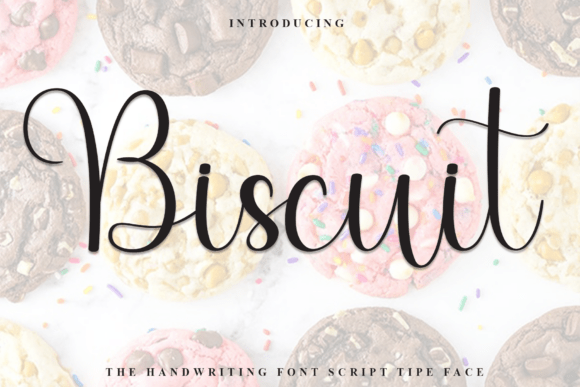
Biscuit Font: The Perfect Addition to Your Design Toolbox
Are you tired of using the same old fonts in your designs? Look no further than the Biscuit font, a casual and creative typeface that exudes warmth and friendliness. With its round, playful strokes, this font is perfect for adding a relaxed and approachable feel to your personal projects, invitations, and social media graphics.
The Charm of Biscuit Font
The Biscuit font boasts a charming, hand-drawn aesthetic that adds a fun and unique touch to any design. Its playful strokes and rounded edges create a sense of warmth and approachability, making it perfect for designs that require a personal touch. Whether you’re creating a birthday invitation, a social media post, or a blog header, the Biscuit font is sure to make your design stand out.
What Makes Biscuit Font Special?
The Biscuit font is a dream come true for designers and crafters who are looking for a unique and versatile typeface to add to their toolbox. Whether you’re a professional designer or a DIY enthusiast, this font is perfect for a wide range of projects, including:
- Personal projects: Add a personal touch to your scrapbooking, journaling, or crafting projects with the Biscuit font.
- Invitations: Create beautiful and unique invitations for birthdays, weddings, or other special occasions.
- Social media graphics: Make your social media posts stand out with the Biscuit font’s playful and eye-catching design.
- Blog headers: Add a touch of personality to your blog with the Biscuit font’s charming and hand-drawn aesthetic.
Tips for Using Biscuit Font
Here are a few tips for getting the most out of the Biscuit font:
- Pair it with other fonts: The Biscuit font pairs well with other playful fonts, such as script fonts or bold sans-serif fonts.
- Experiment with colors: The Biscuit font looks great in a variety of colors, from bright and bold to soft and pastel.
- Use it for headings: The Biscuit font is perfect for headings and titles, but it can also be used for body text for a more playful look.
In conclusion, the Biscuit font is a versatile and charming typeface that’s perfect for designers and crafters who are looking to add a personal touch to their designs. With its playful strokes, rounded edges, and standard PUA Encoded glyphs, this font is sure to become a staple in your design toolbox. So why not give it a try and see how it can elevate your designs?
Get Creative with Biscuit Font
Ready to get creative with the Biscuit font? Here are some ideas to get you started:
- Create a custom birthday invitation with the Biscuit font and a playful design.
- Use the Biscuit font to create a unique and eye-catching social media post.
- Add a touch of personality to your blog with the Biscuit font’s charming and hand-drawn aesthetic.